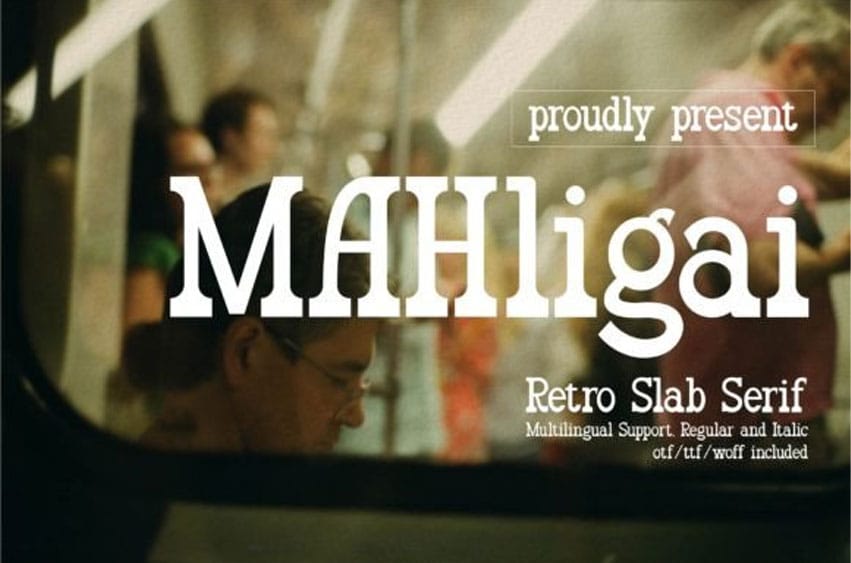
Mahligai Font combines a classic, vintage look with bold, thick letters. It’s called a “slab serif” because each letter has strong, block-like endings.
Imagine old posters or signs from the past; Mahligai brings that same nostalgic feel with a touch of elegance.